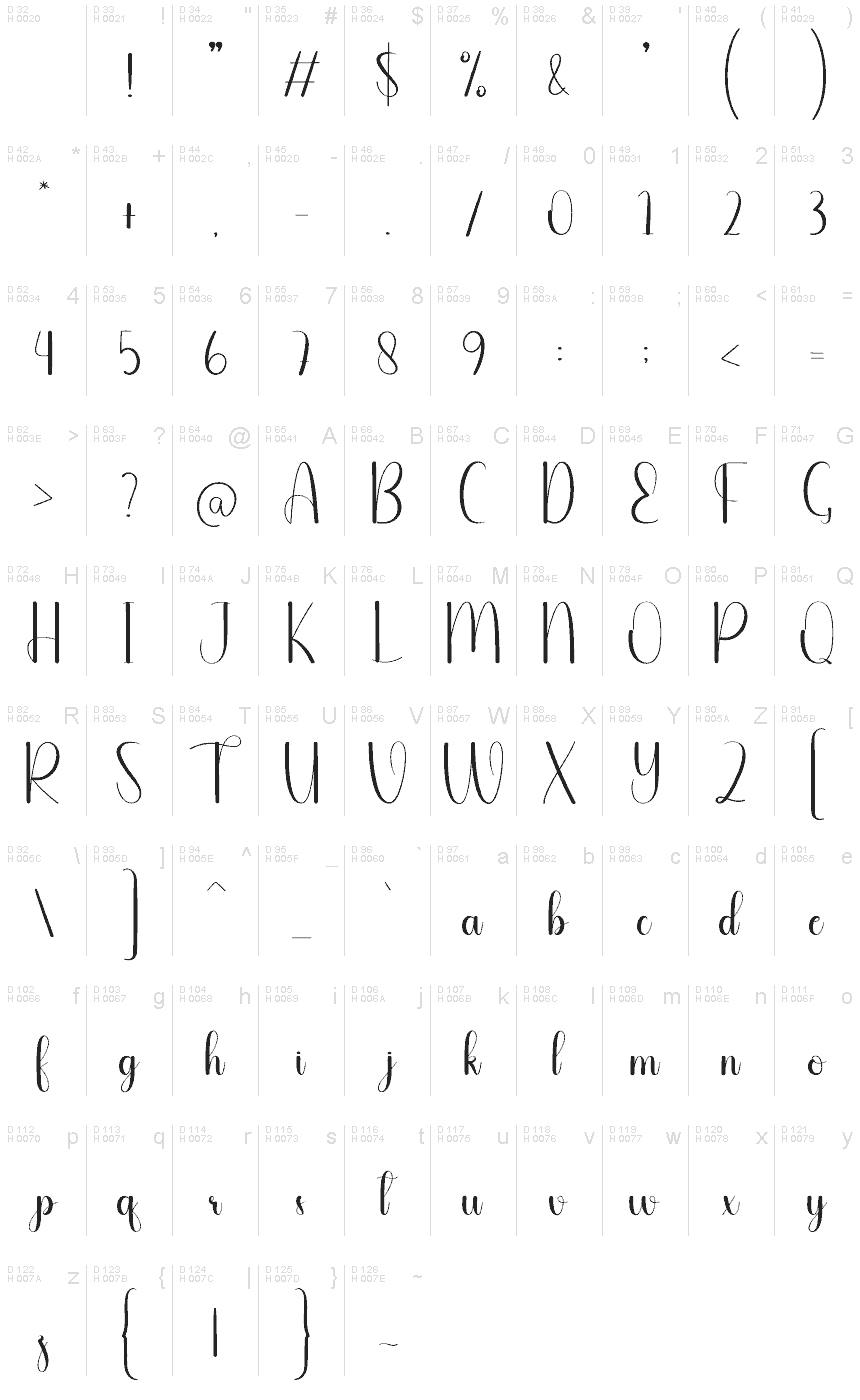
Residence
Residence font is a free calligraphy font designed by Andi Moz in an elegant flowing style. The graceful characters form sophisticated combinations that turn any text or word into a work of art. Modern and inviting, this font is perfectly suited for all contemporary designs that require a nice soft touch.
Use it for wedding invitations, business cards, cosmetics labels, journals covers and content, blog posts titles, product packaging or presentation. Similarly enjoy applying it in greeting card designs such as birthdays and anniversaries, rack cards, posters both printed and digital use among various other places.